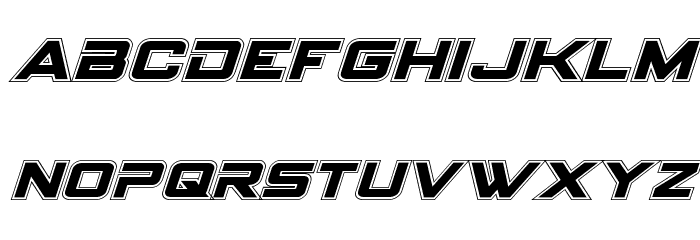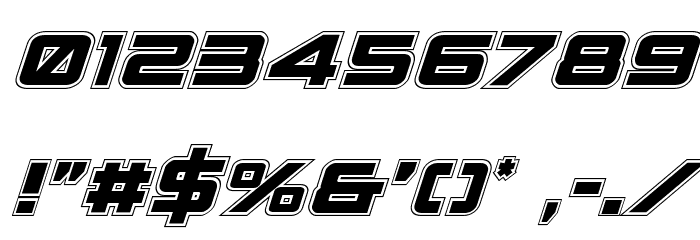
Spy Agency College Italic Font
This font features a bold, italicized style with a strong, dynamic presence. The characters are outlined, giving them a three-dimensional effect that adds depth and interest. The uppercase letters are particularly striking, with sharp angles and a sense of motion, making them ideal for attention-grabbing headlines. The numerals and special characters maintain the same bold and italicized characteristics, ensuring consistency across all uses. This font's unique style is perfect for projects that require a modern and edgy look.
Bold, italicized font with a dynamic, outlined style.
- Font: Spy Agency College Italic
- Proposed Projects: Ideal for sports branding, dynamic posters, and modern advertising campaigns.